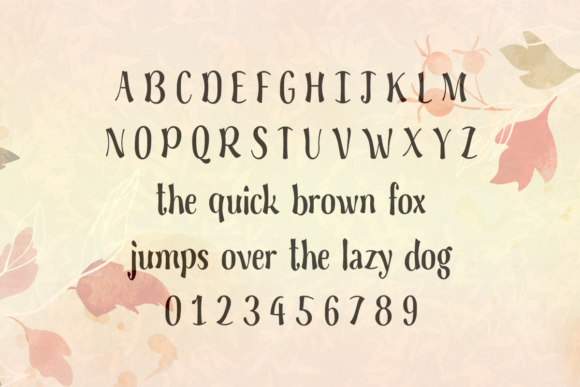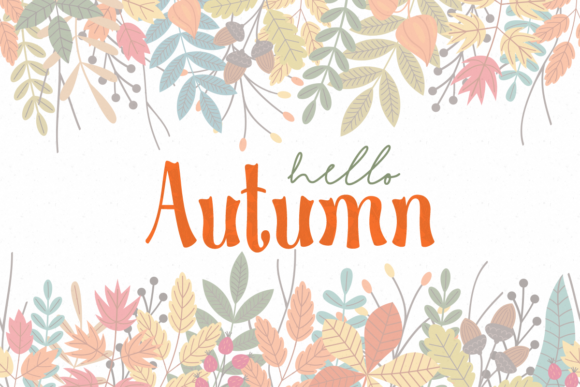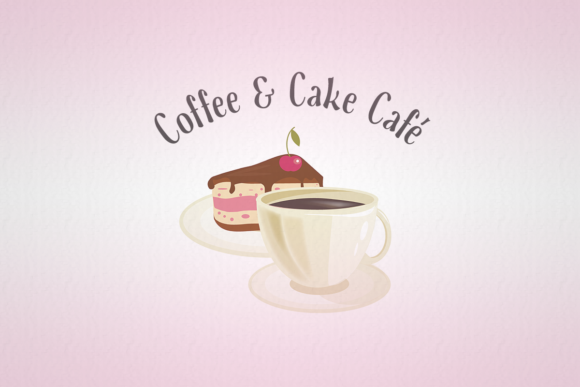
Fairy Cottage Font: A Cute Display Font for Playful Designs & Cricut!
About the Fairy Cottage Font
Discover the charm of Fairy Cottage Font. This font is a perfect blend of modern aesthetics and classic appeal. Fairy Cottage is a charming display font. Whether you use it for cartoon related designs, children games or just any creation that requires a lovely touch, this font will be an amazing choice.
Fairy Cottage’s whimsical charm makes it ideal for children’s books, playful branding projects, and packaging for sweet treats or toys. It also works well in short headlines and eye-catching posters where its unique character can shine. However, its decorative nature makes it unsuitable for body text or UI elements requiring high readability. Avoid using it in large blocks of text or applications demanding clear legibility.
Pairing Fairy Cottage with a clean sans-serif like Open Sans for body copy creates a balanced and accessible design. For a more playful feel, consider pairing it with a rounded geometric sans-serif such as Poppins. A contrasting serif like Lora could add a touch of sophistication if a slightly more mature application is required.
Its overall personality is friendly and approachable, evoking a sense of warmth and lightheartedness. This font is perfect for projects aiming for a nostalgic or heartwarming feel.
Fairy Cottage Font Usage Examples
Fairy Cottage Font Example